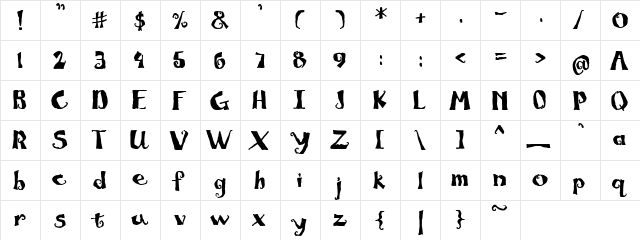
PC Witches Toe Regular
Design Context for PC Witches Toe Typeface
PC Witches Toe is a composed and adaptable typeface that performs quietly and consistently across a wide range of design contexts.